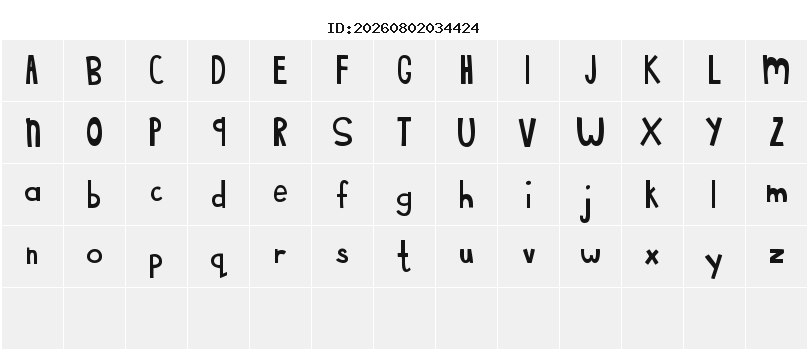
• Font Name: MTF Sweet Cheeks
• Full Font Name: MTF Sweet Cheeks
• Version: Version 1.00 August 30, 2009, initial release
• Designer: Miss Tiina
About MTF Sweet Cheeks.ttf
MTF Sweet Cheeks.ttf is a modern, elegant sans-serif font designed for ultimate readability and visual harmony. Perfect for branding, headlines, web design, and print materials.